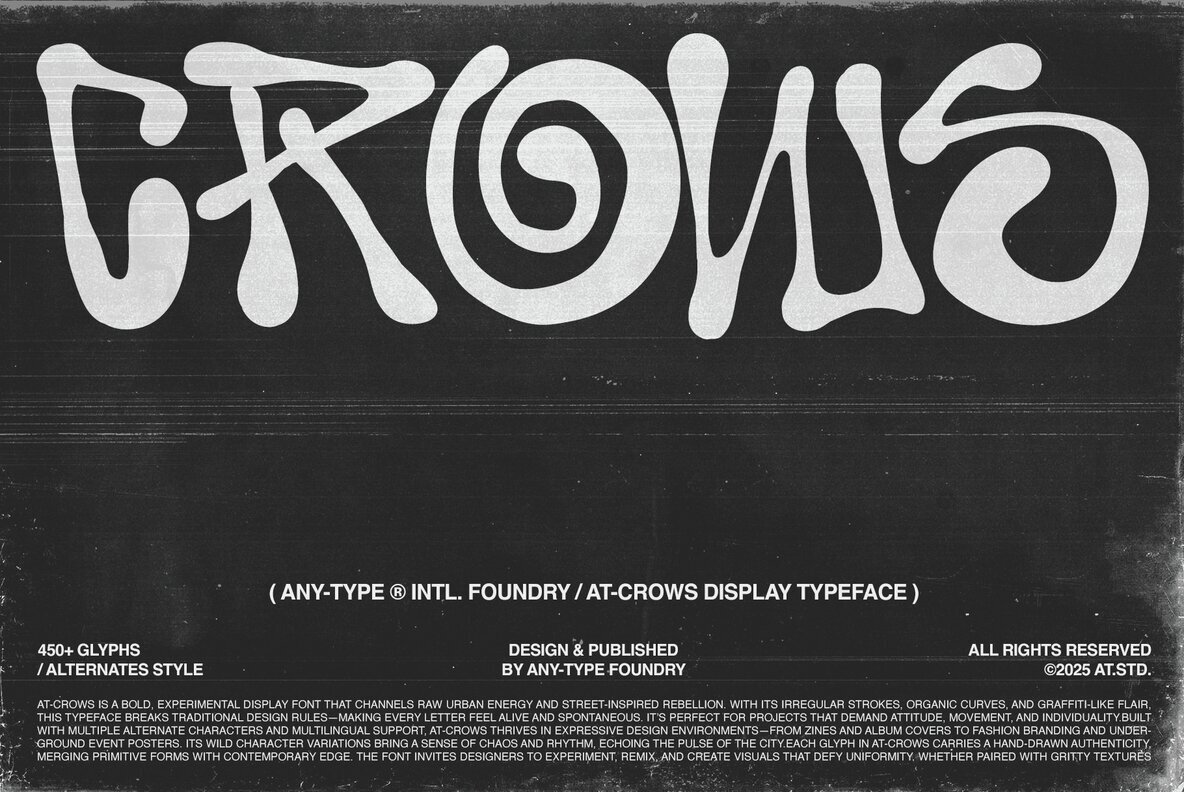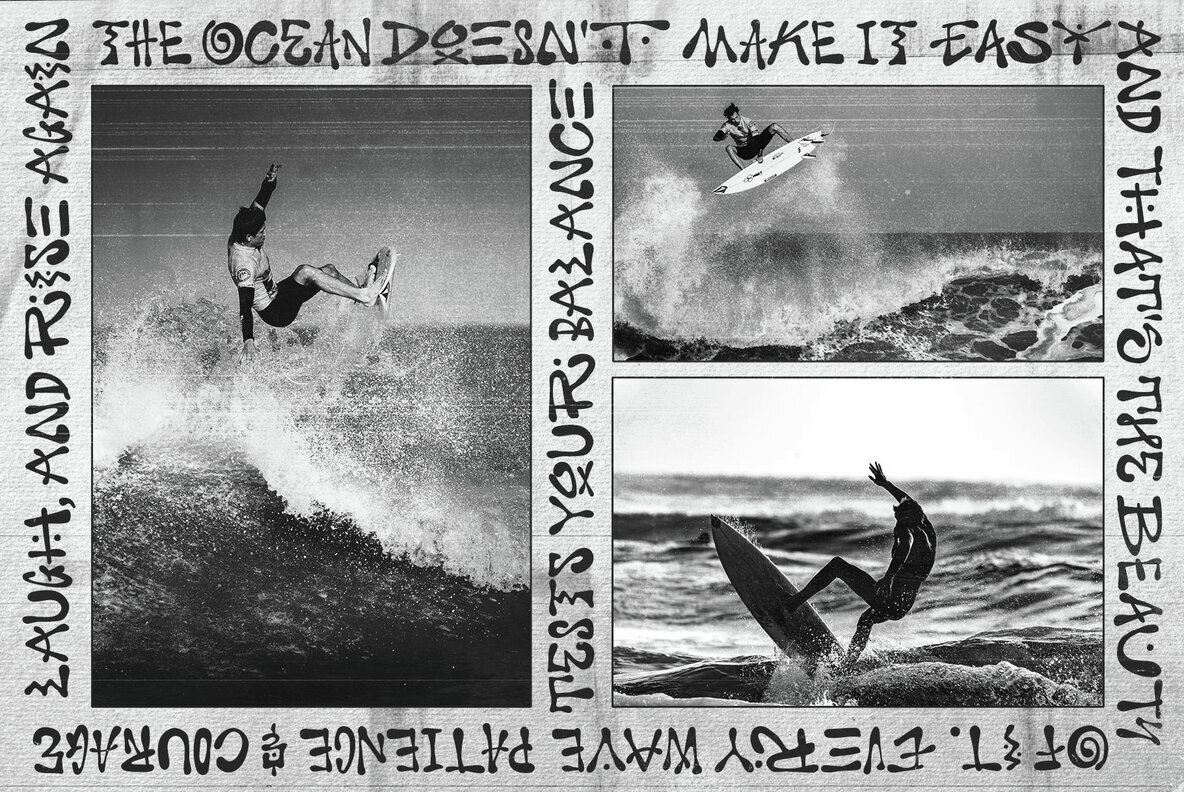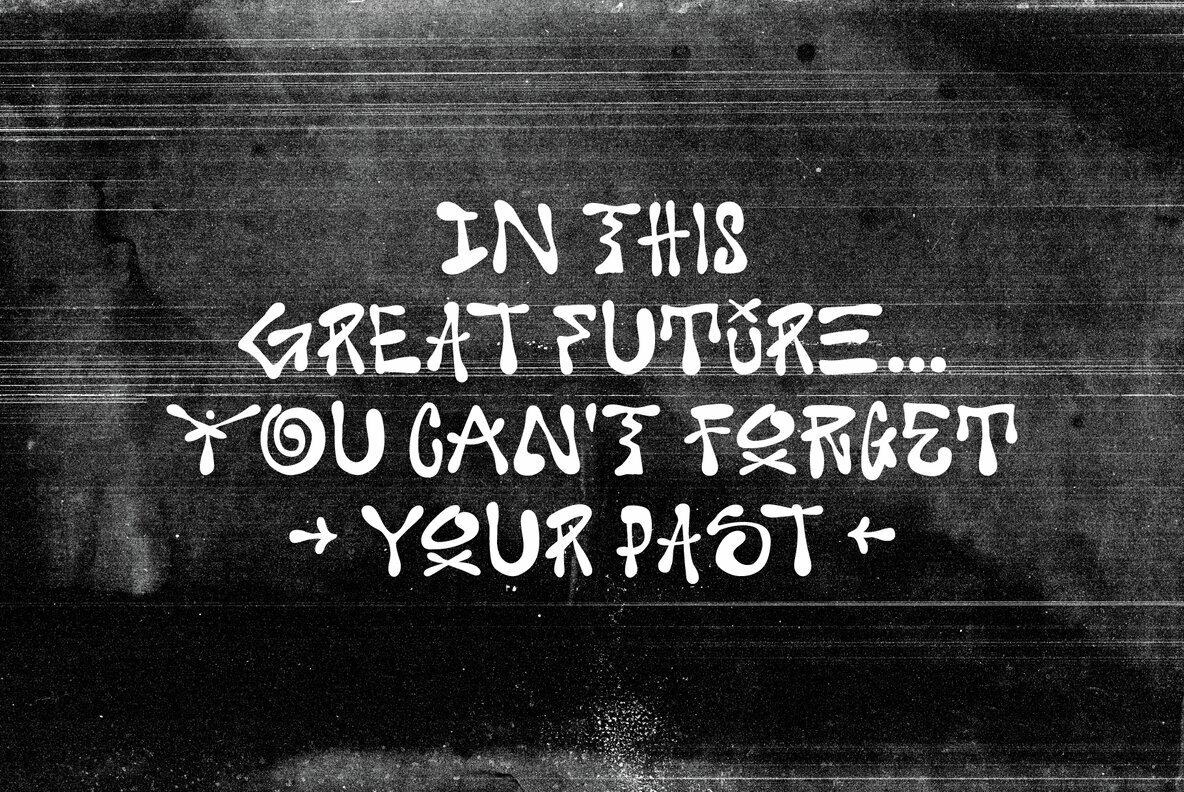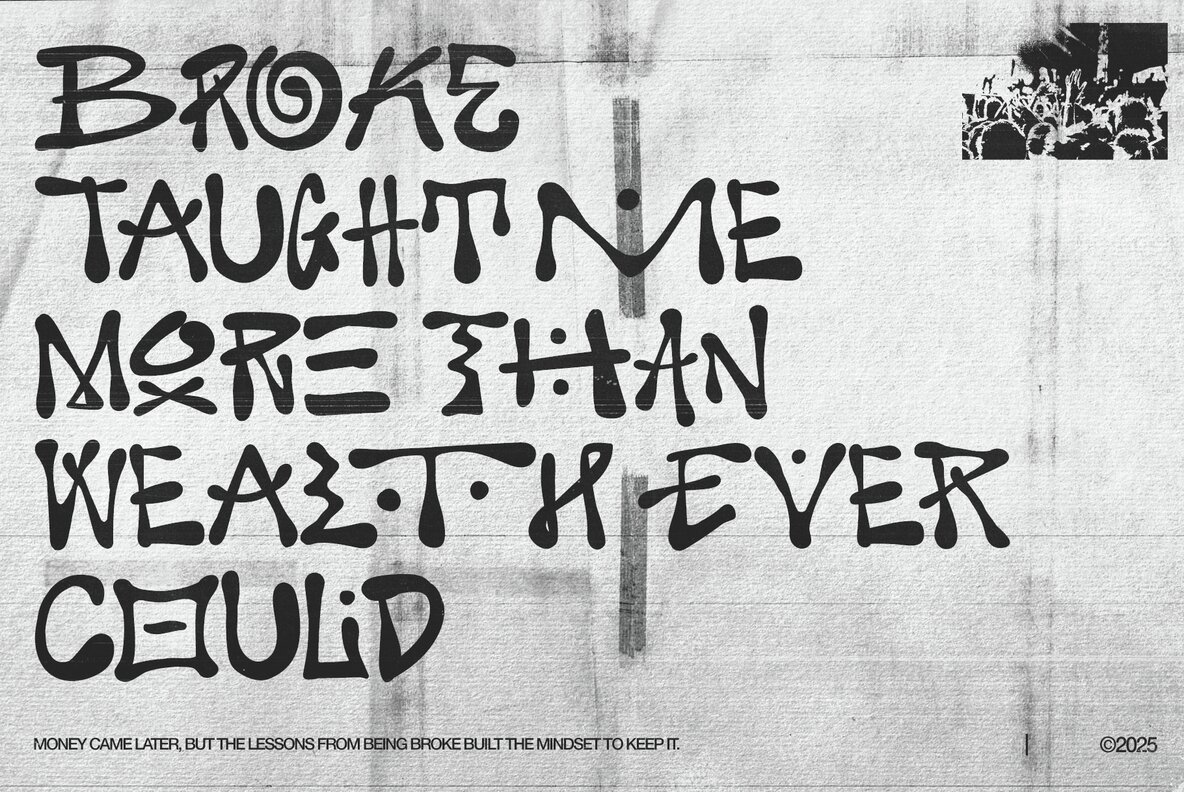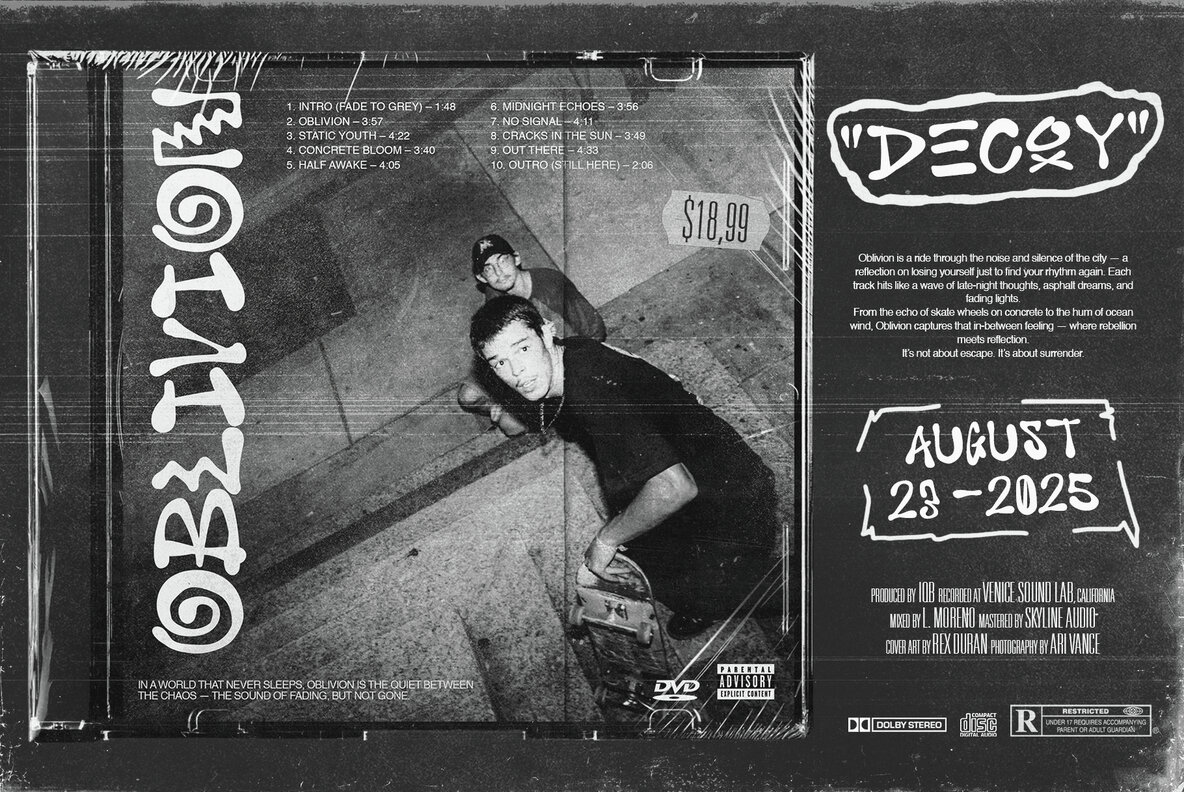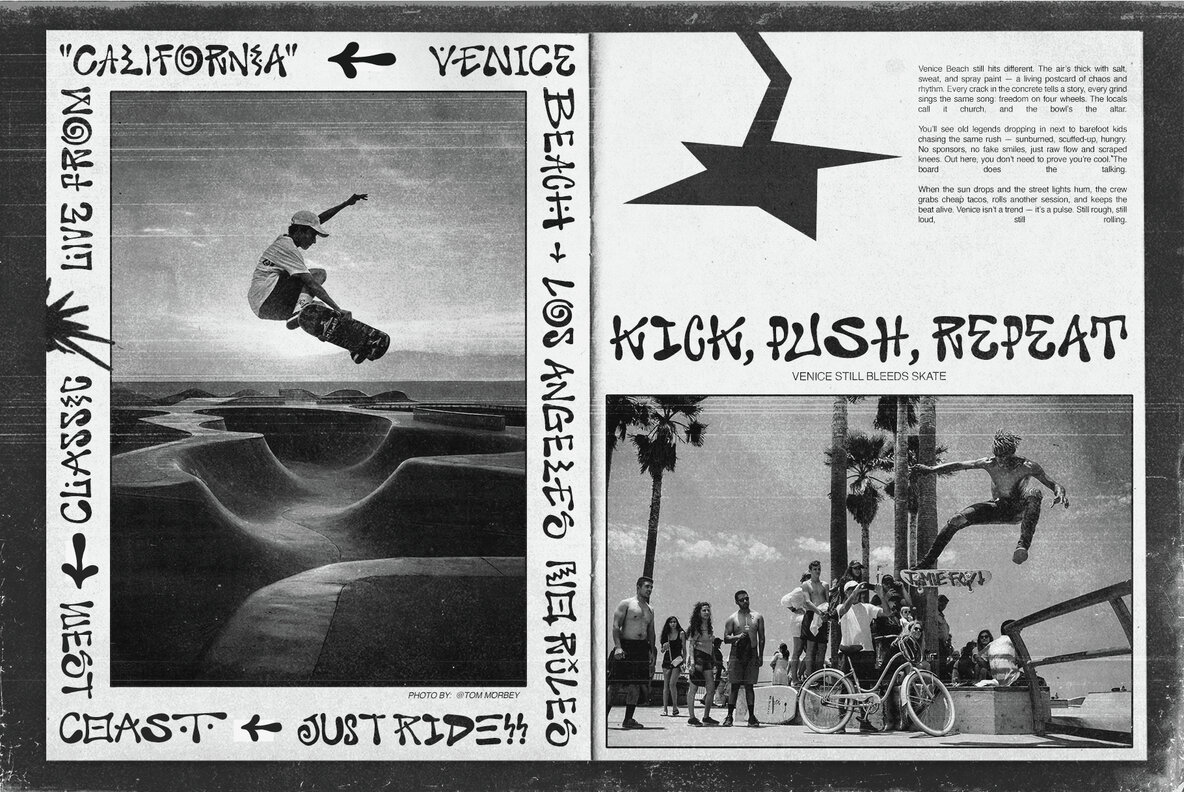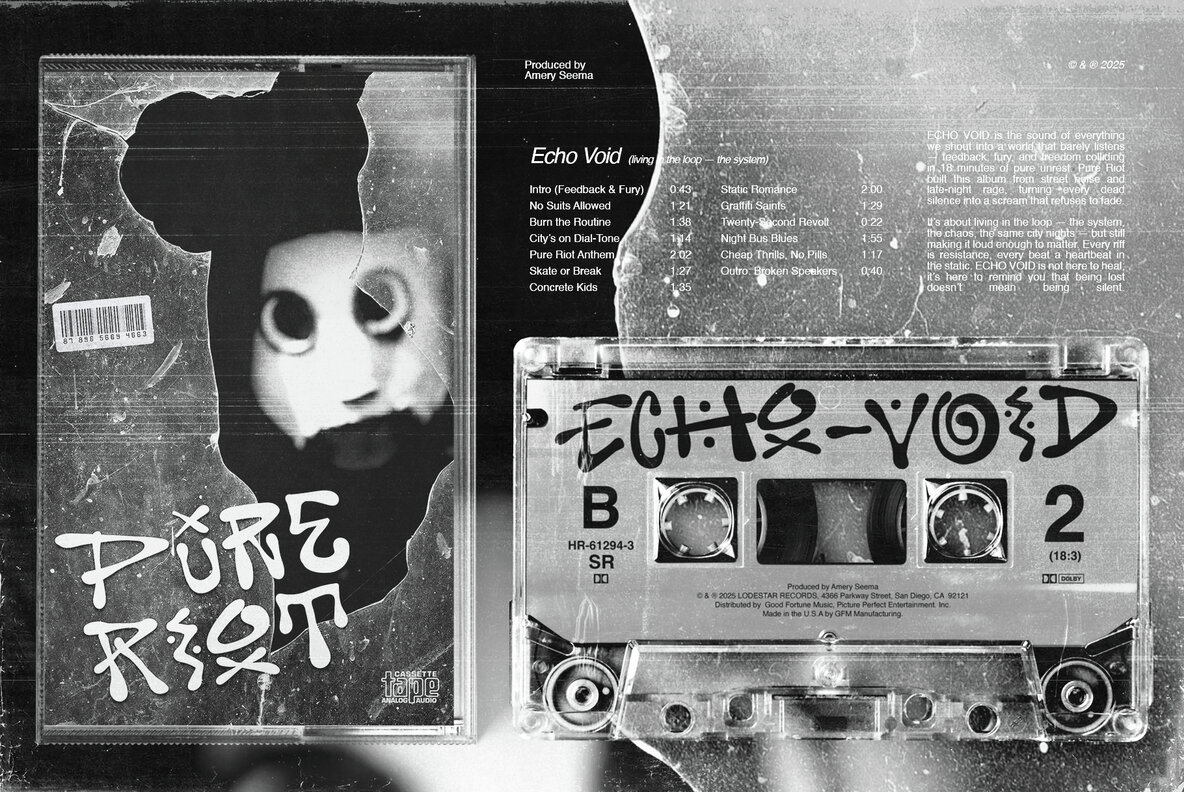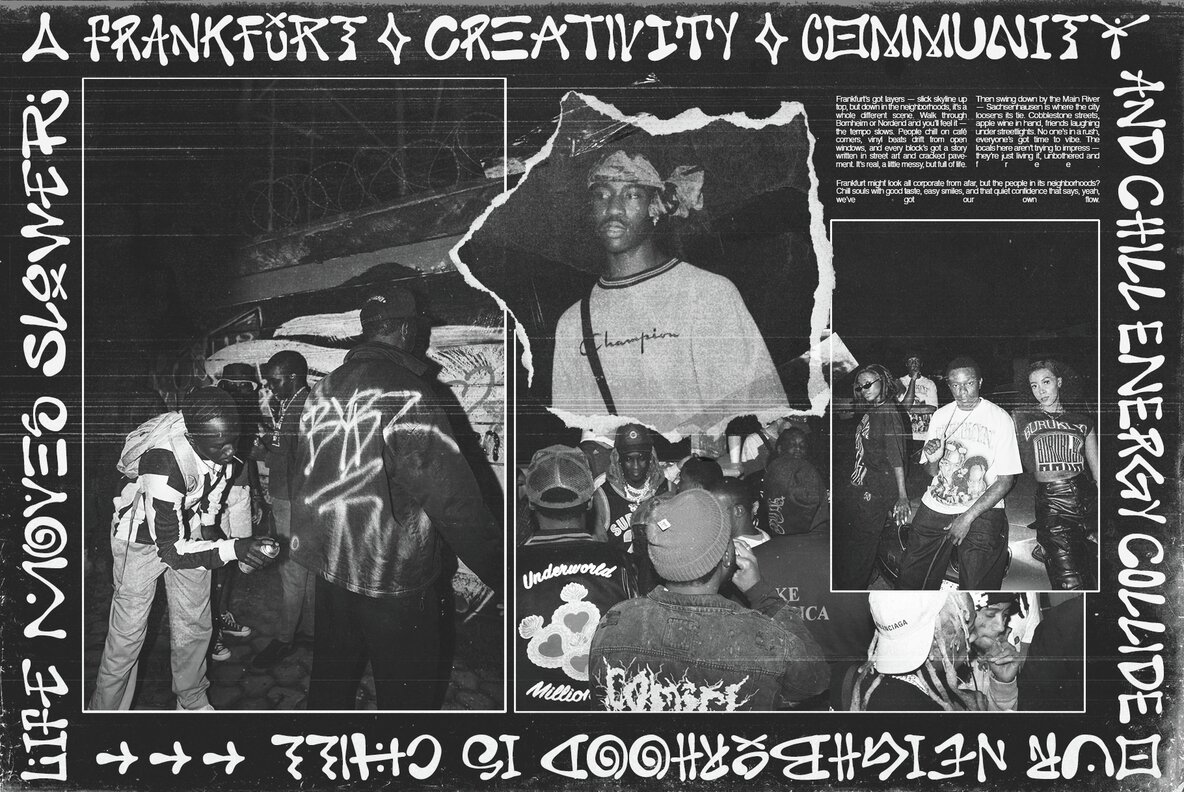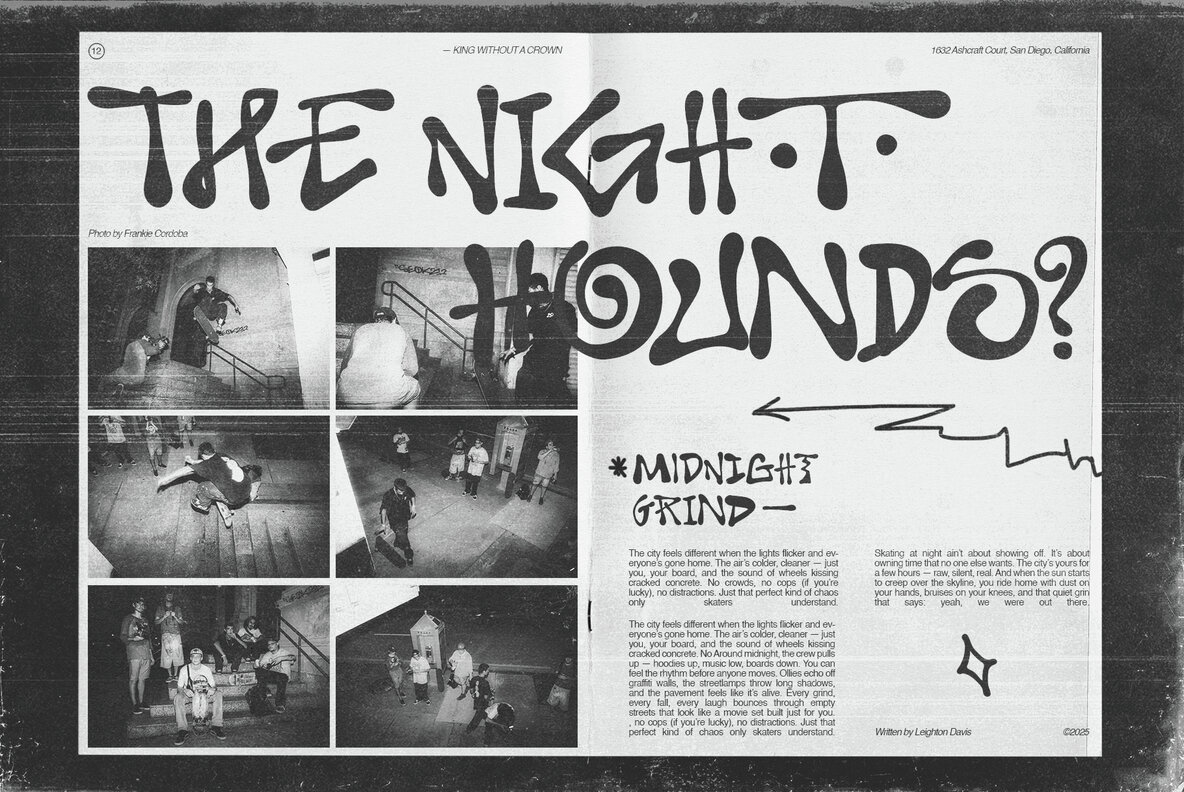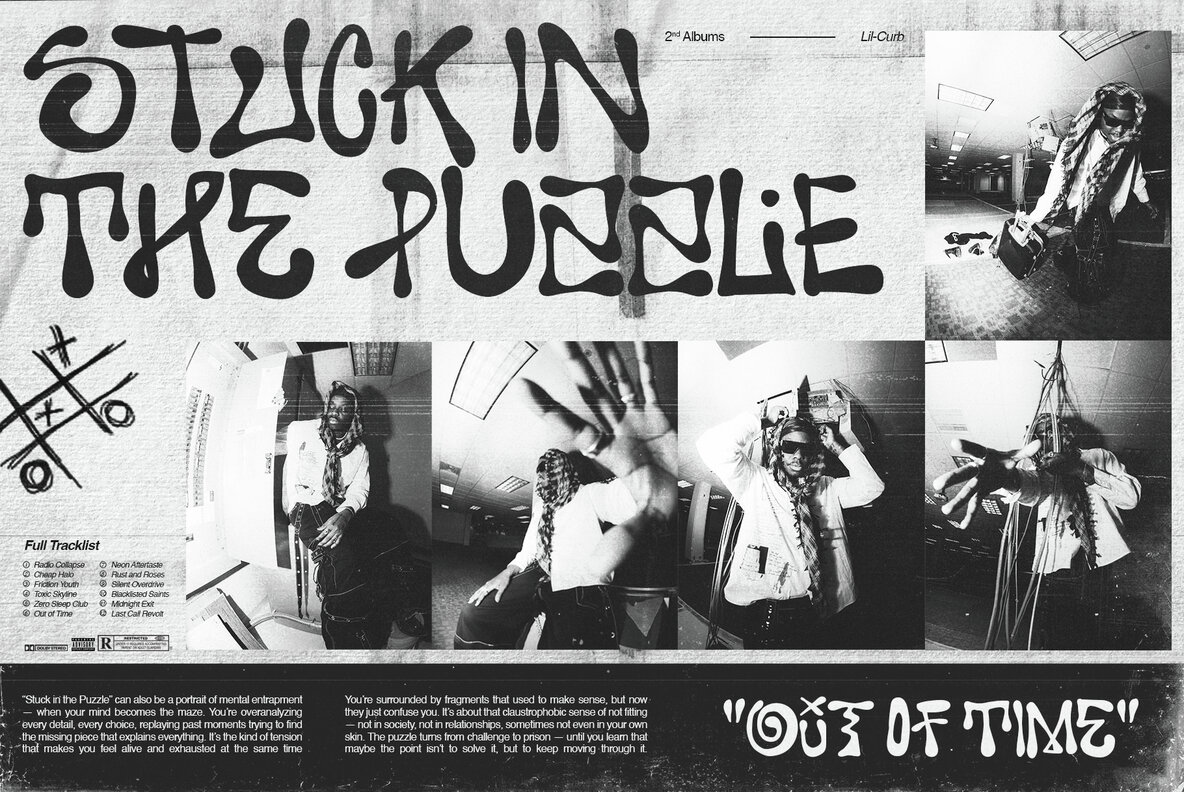
AT Crows Font
AT Crows Regular
AT Crows is a daring display font that channels the essence of raw urban energy and street-inspired rebellion. With its irregular strokes, organic curves, and graffiti-infused style, this typeface defies conventional design norms, making each letter appear vibrant, expressive, and uniquely unpredictable. Designed for those who embrace boldness, AT Crows thrives in projects demanding attitude, rhythm, and movement—from zines, album covers, and event posters to fashion branding and striking editorial layouts. Featuring over 450 glyphs and multiple alternates, this font offers limitless avenues for creativity, allowing you to construct visuals that stand out. Each character embodies a hand-drawn authenticity, blending primitive forms with a contemporary edge—a testament to the dynamic pulse of modern cities.AT Crows: Urban Energy in Typeface Form